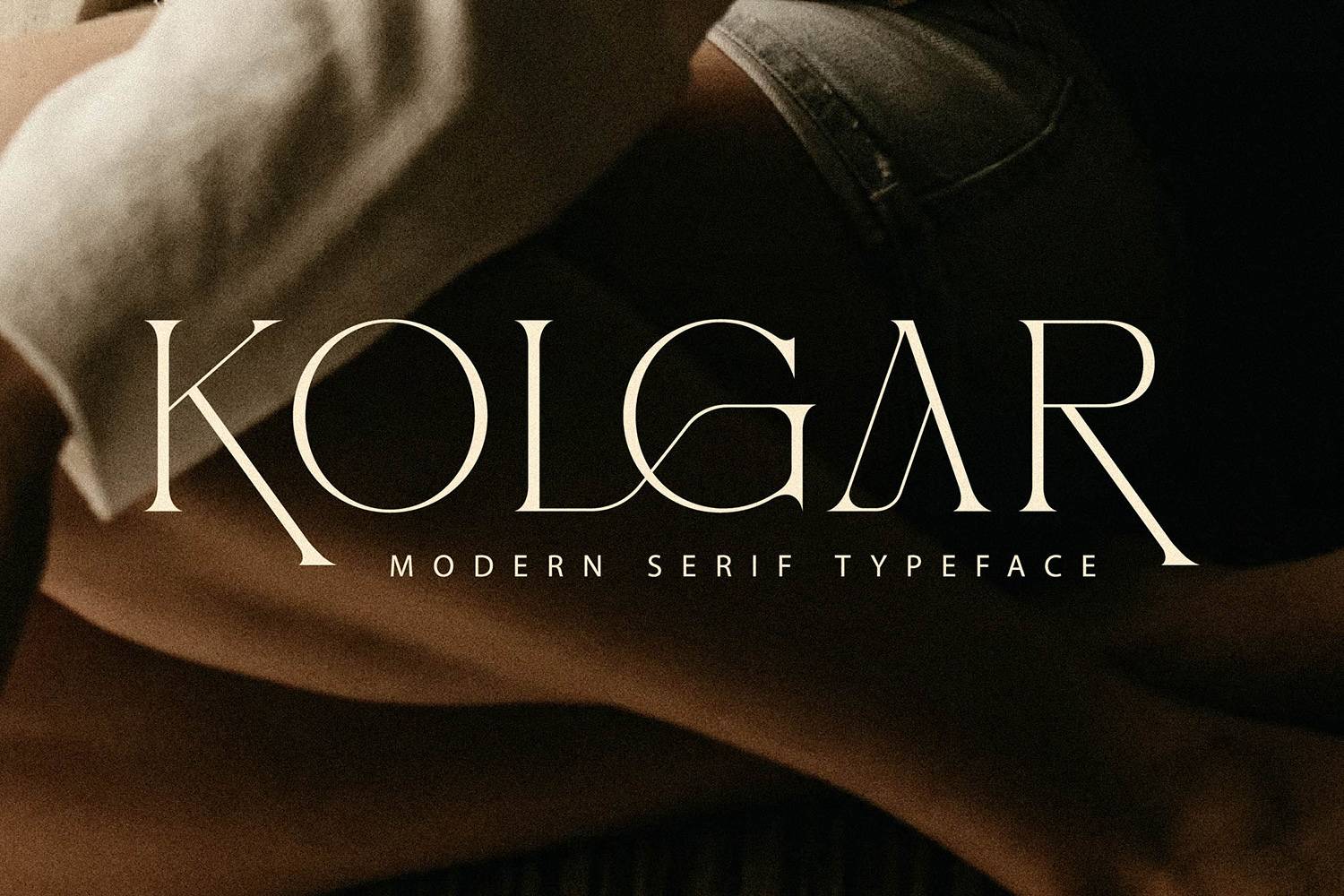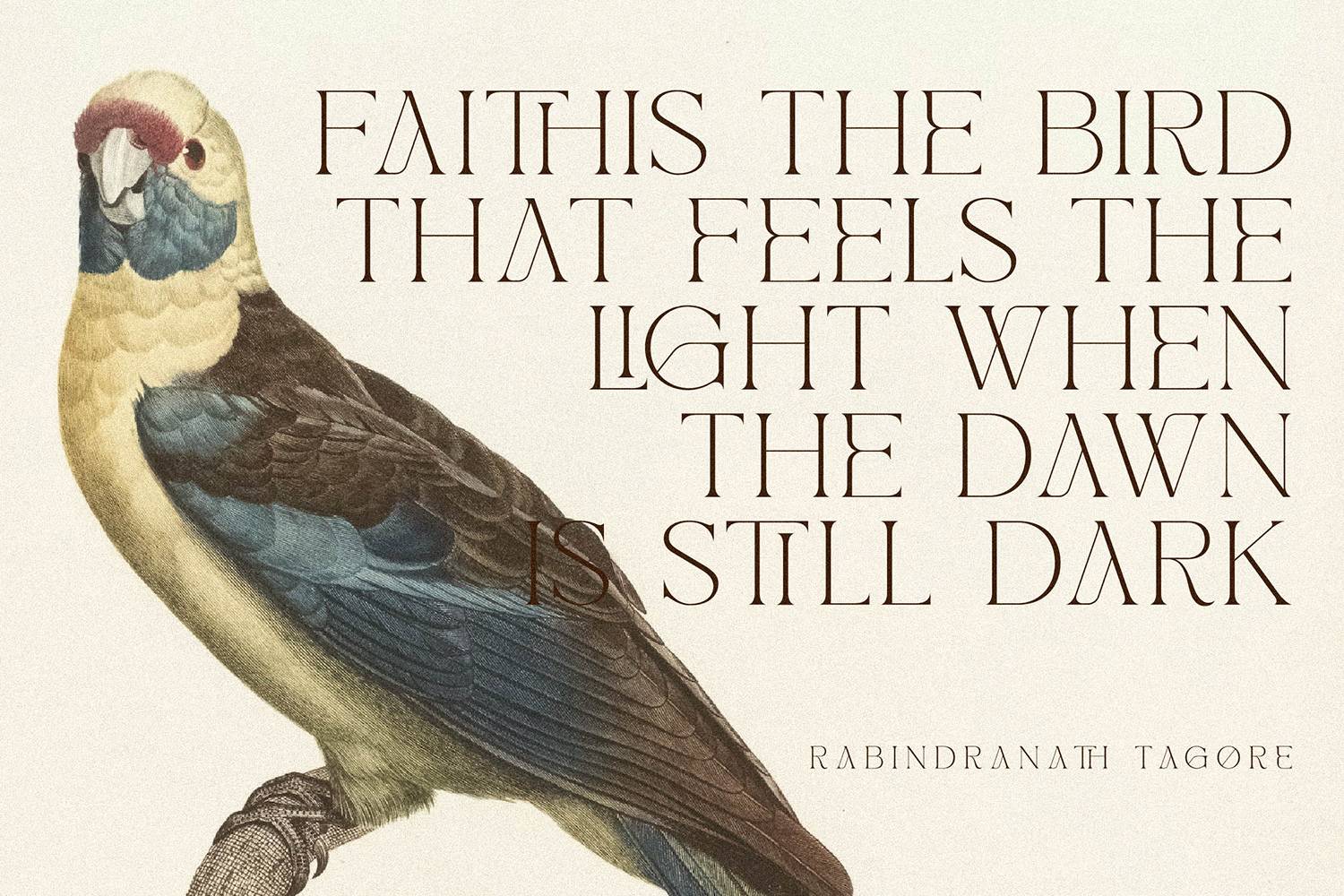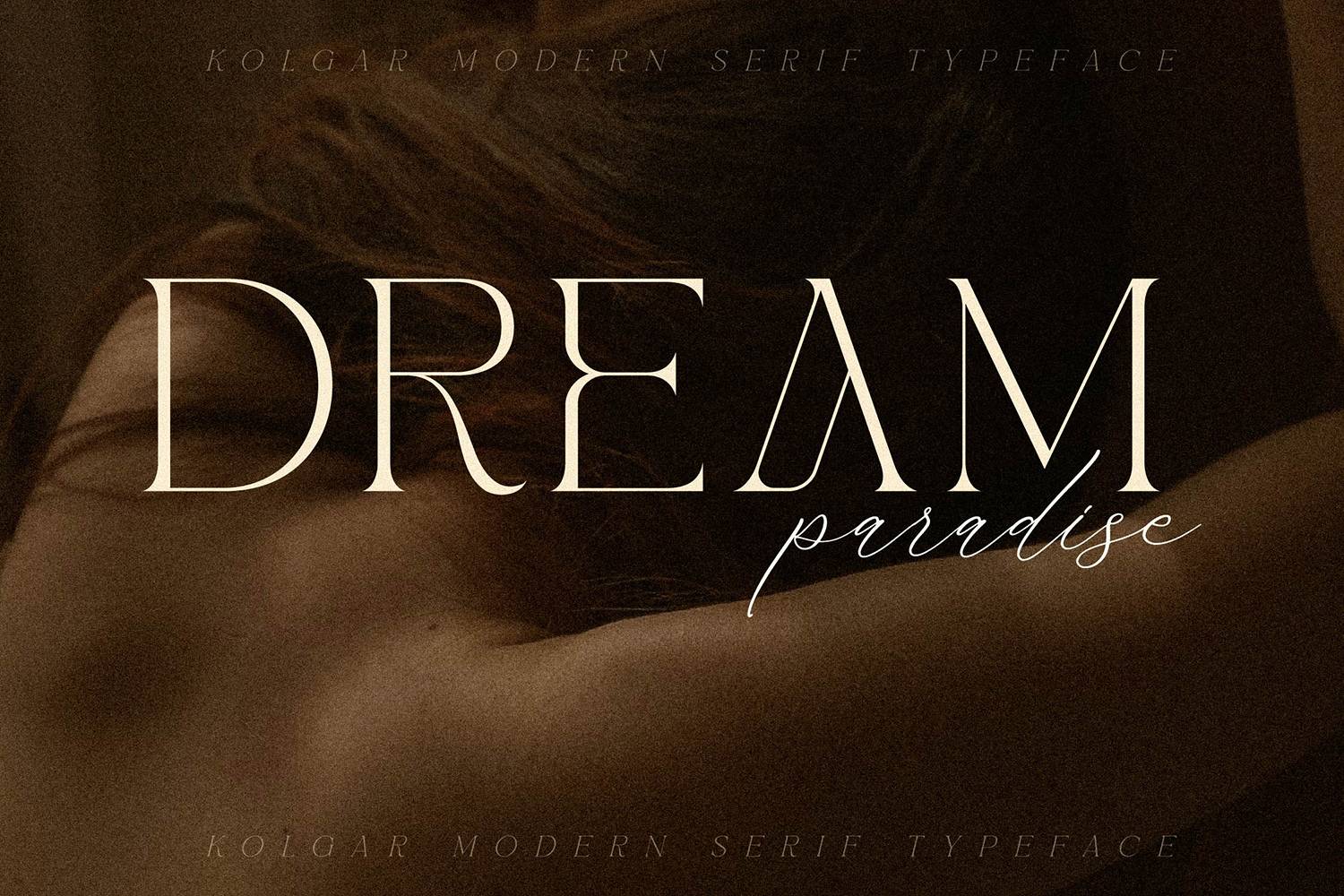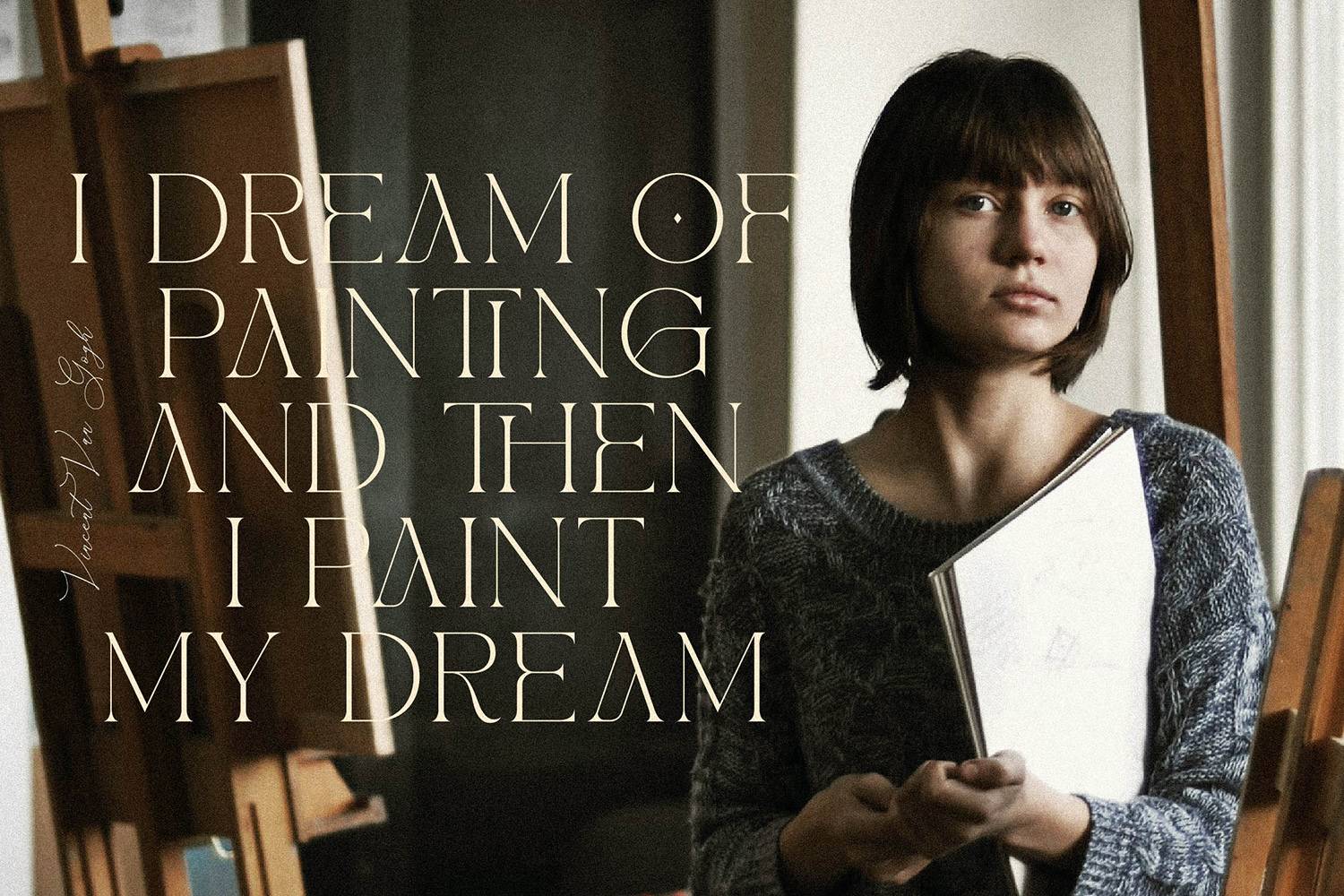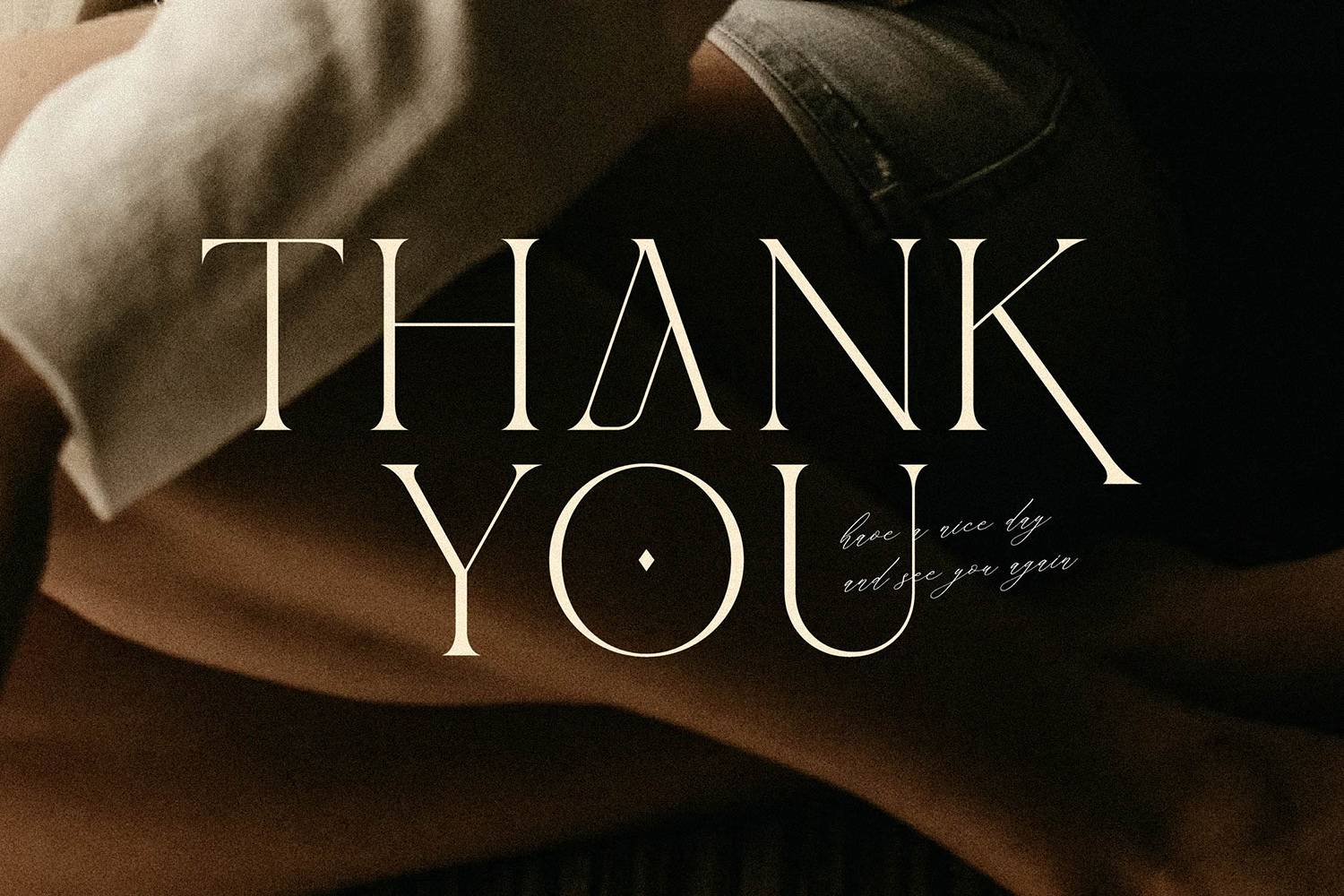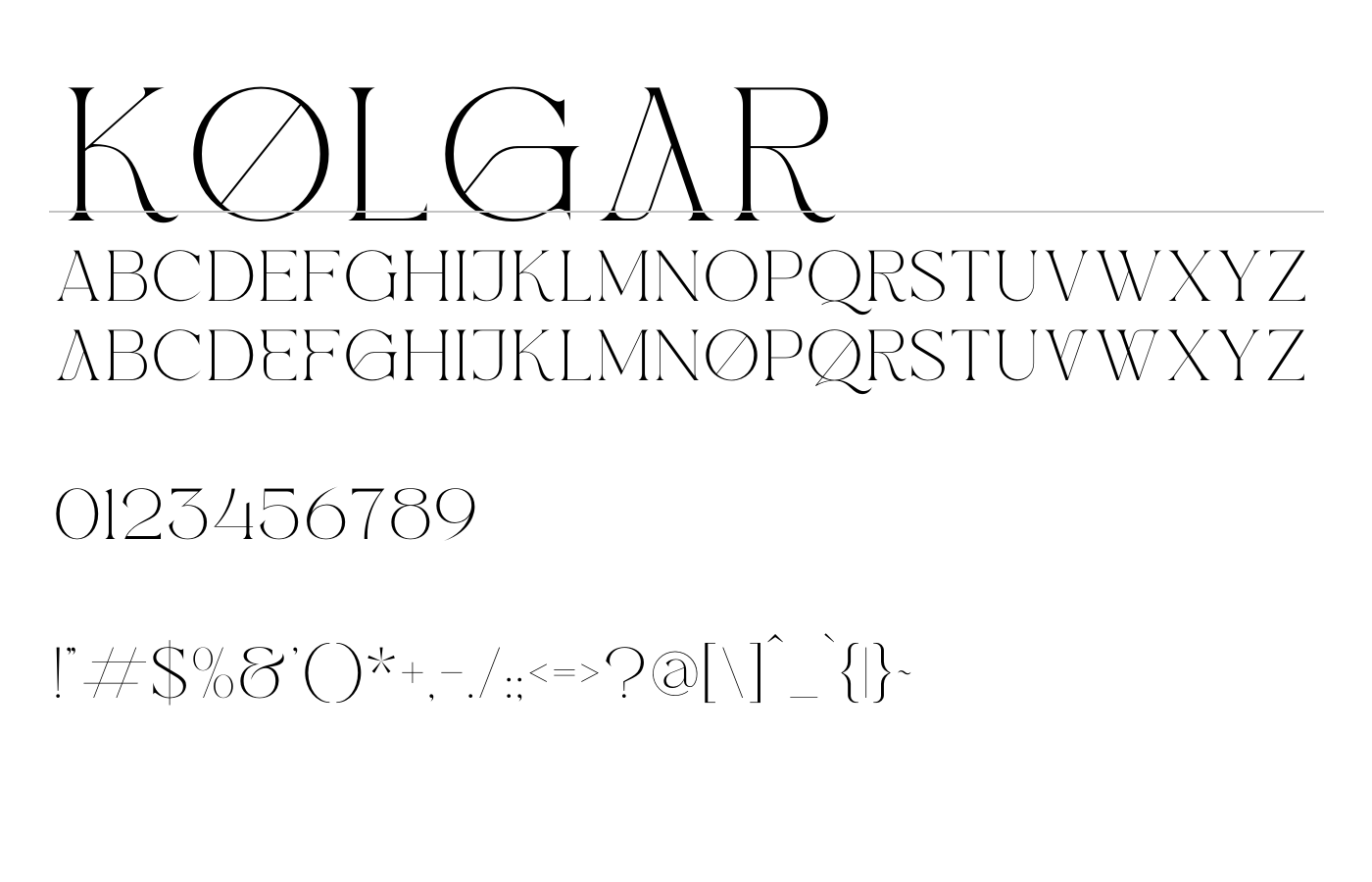
Kolgar is an elegant serif font with a modern twist, featuring fine, high-contrast strokes and unique geometric details that give it a sophisticated and artistic feel. Its delicate, narrow letterforms with distinctive shapes make it ideal for luxury branding, editorial headlines, and stylish packaging where a refined yet contemporary look is desired. This font’s graceful and airy design communicates exclusivity and creativity, perfect for fashion and upscale design projects.
Kolgar Font